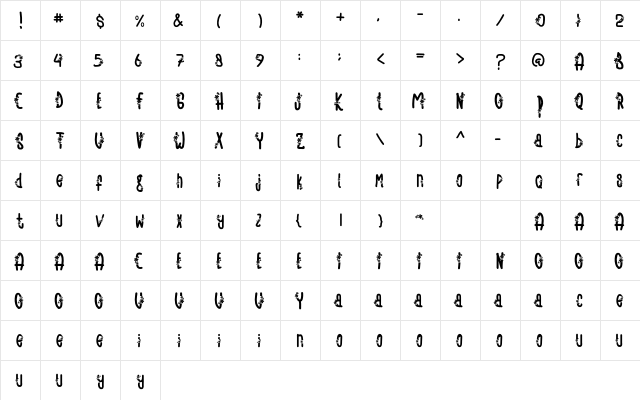
September Rain Regular
| Designer | Nur Edi Prayitno |
Design Context for September Rain Typeface
September Rain is a composed and adaptable typeface that performs quietly and consistently across a wide range of design contexts.